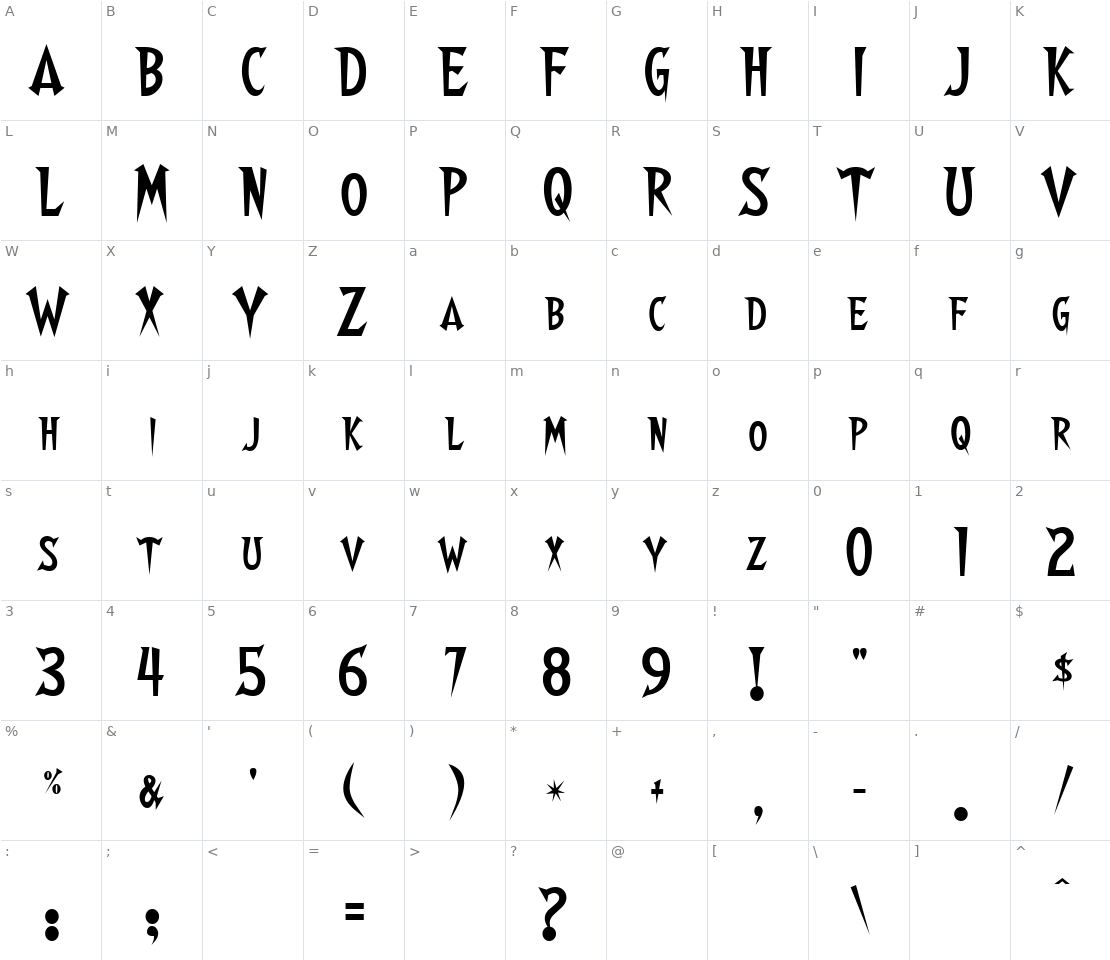
Walshes
Walshes is a condensed, bold display face from Ray Larabie with warped, irregular letterforms that feel unsettled and slightly gothic. The distortion isn't random; there's a deliberate unease to the shapes, like familiar letters seen through old glass. It works best in headlines and short-form display text where you want something dark and off-kilter without going full horror.